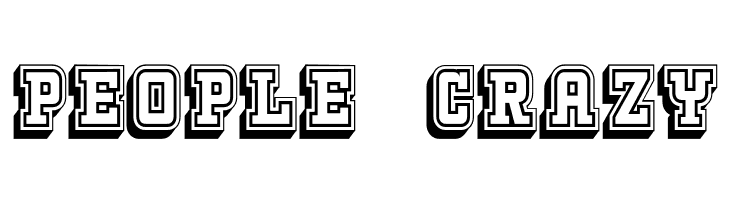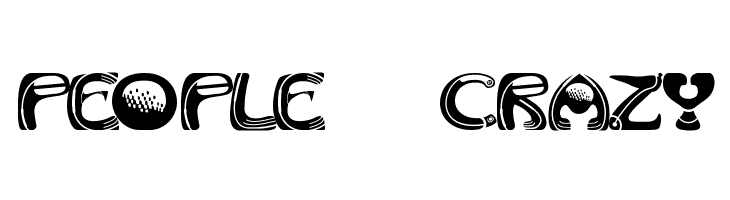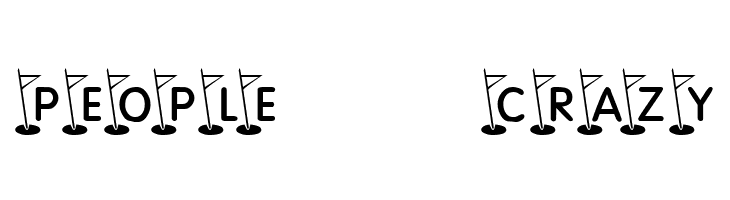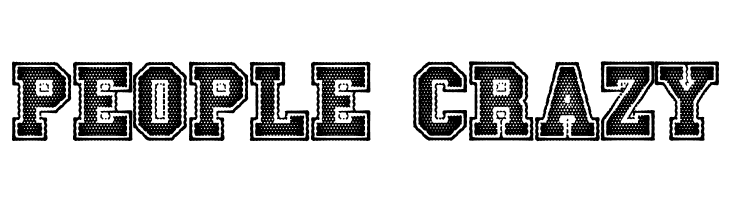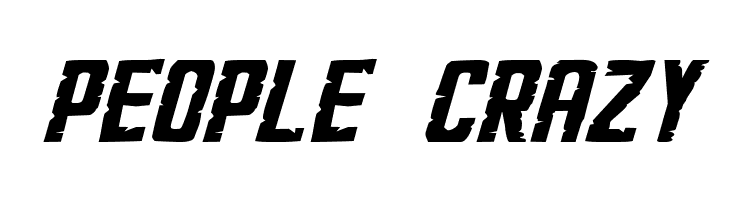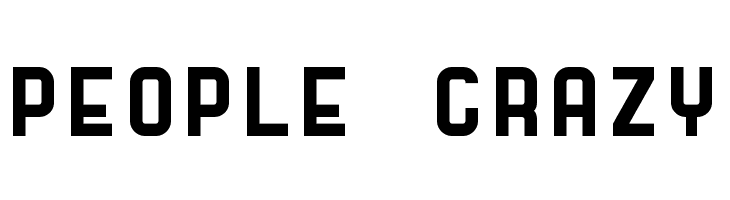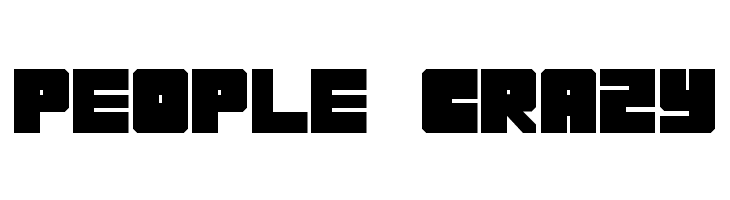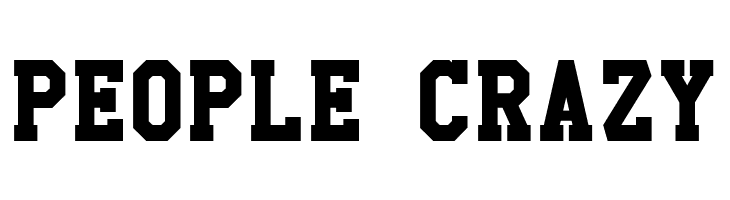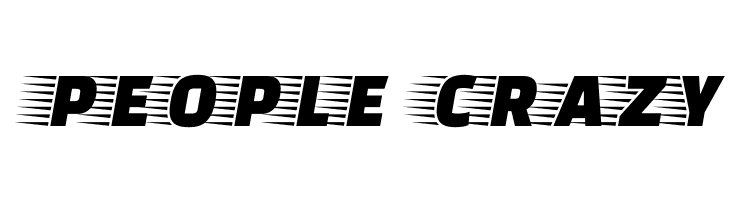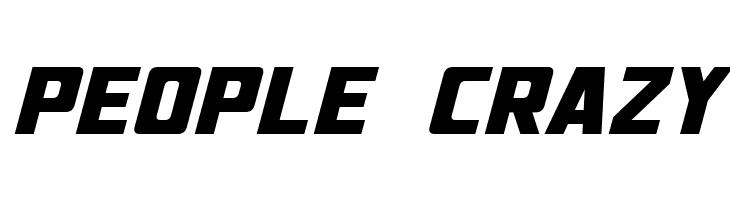
A bold, decorative font with a retro style and dotted interior pattern.
A bold, collegiate-style font with a strong, three-dimensional effect.
A playful, golf-themed decorative font with flagpole accents.
A bold, varsity-style font with a textured, dotted interior and strong outlines.
A bold, expanded, and italic font with a rugged, dynamic style.
A bold, decorative font with a hand-drawn, vintage collegiate style.
A bold, geometric font with a modern, industrial aesthetic.
A bold, slanted font with a dynamic, speedy appearance.
A bold, italic font with a dynamic and futuristic style.
A bold, condensed, and italicized font with a modern, futuristic style.
A bold, cracked, and textured font with an edgy and dynamic style.
A bold, geometric font with a strong, masculine aesthetic.
A bold, italic font with geometric shapes and a dynamic, modern style.
A bold, futuristic font with geometric shapes and rounded edges.
A modern, italicized font with a sleek, dynamic design.
A bold, distressed font with a dynamic, energetic style.